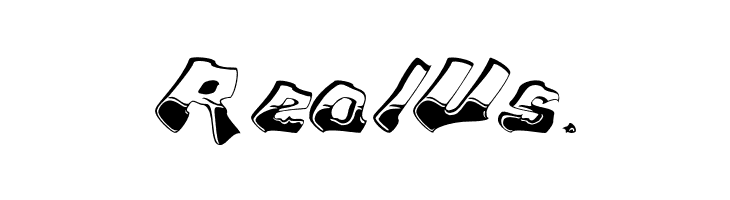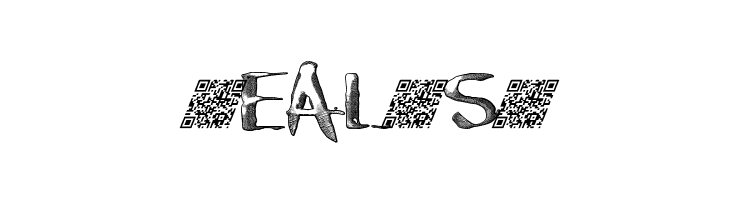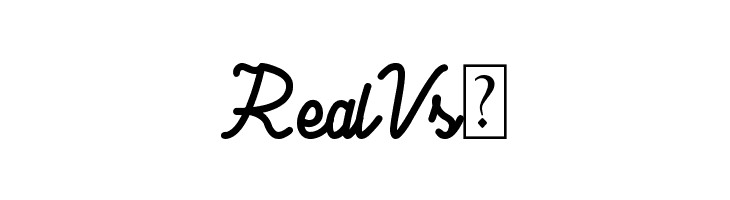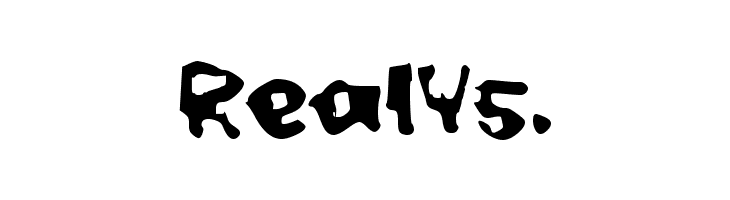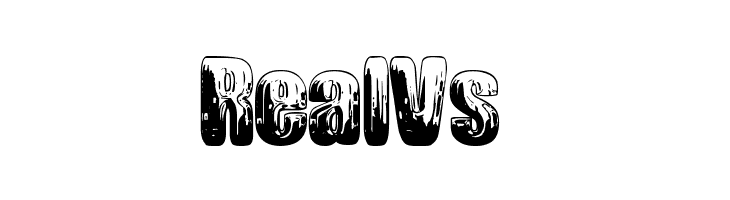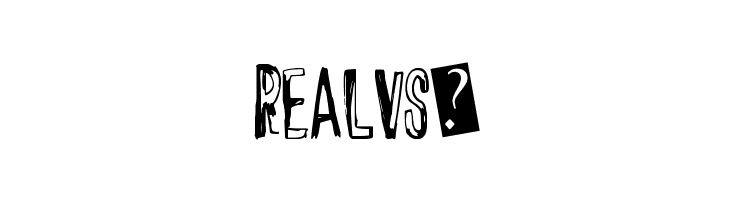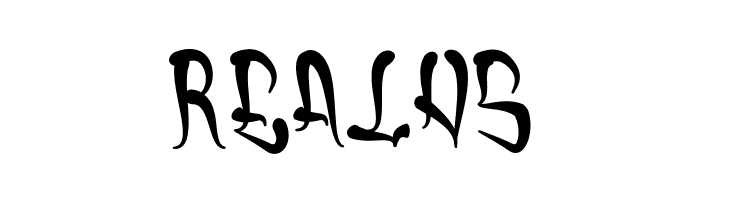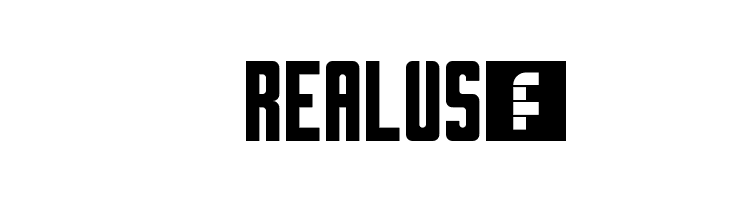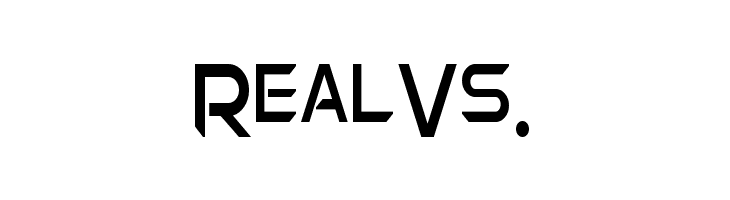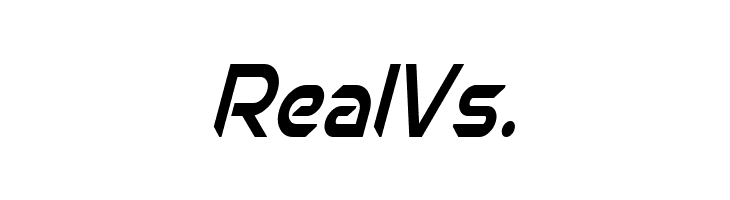
A bold, three-dimensional font with a ghostly shadow effect.
A bold, decorative font with an organic, hand-drawn appearance.
A dynamic and fluid script font with elegant cursive strokes and smooth connections.
A bold, calligraphic font with dramatic curves and artistic flair.
A bold, rounded font with a modern and playful style.
A bold, geometric typeface with angular shapes and sharp edges.
A bold, geometric font with a futuristic and modern design.
A bold, chrome-effect font with a modern, metallic appearance.
A bold, geometric font with strong lines and a modern aesthetic.
A bold, decorative font with an inline, three-dimensional style.
A modern, geometric font with bold, angular letterforms and a retro-futuristic vibe.
A bold, distressed font with a grunge, hand-drawn style.
A bold, futuristic font with a 3D effect and dotted interior pattern.
A bold, artistic font with a textured, hand-drawn appearance.
A bold, geometric font with a modern and technical style.
A bold, decorative font with a retro inline design.
A bold, modern font with geometric elements and a futuristic style.
A modern, geometric font with sharp edges and a futuristic style.
A modern, geometric font with a condensed and angular design.
A bold, geometric, and condensed font ideal for modern and impactful designs.
A bold, italic, and condensed font with a modern and dynamic style.
A sleek, modern, condensed italic font with sharp angles and dynamic style.
A modern, italicized font with a sleek, futuristic design.
A futuristic, geometric font with sharp angles and clean lines.
A bold, futuristic font with geometric shapes and sharp angles.
A bold, italicized font with a modern, dynamic style.
A bold, futuristic font with sharp, angular edges and a condensed structure.
A bold, condensed font with a modern, geometric style.
A bold, italic, and condensed font with a modern and dynamic style.
A sleek, modern, condensed italic font with angular precision.
A modern, italic font with a sleek and dynamic design.